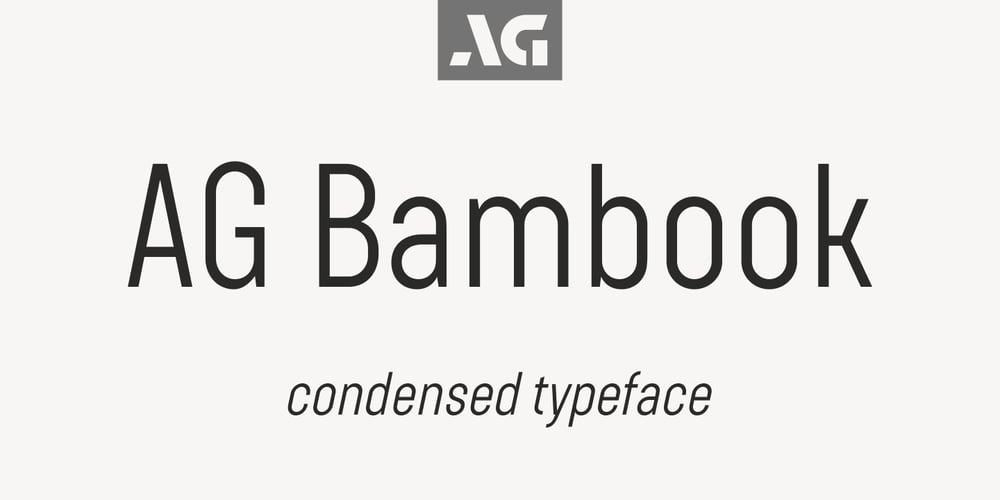
AG Bambook Font Family was designed by Alexandr Galuzin and published by Alexandr Galuzin. AG Bambook contains 4 styles and family package options. AG Bambook- compressed geometric sans serif with the closed forms. Contains 4 fonts. 2 regular and 2 italic. The font is universal and can be used in different directions of graphic design. Internet, printed materials, clothing, logos, posters, labels, navigation and more. Thanks to character compression, you can place a large amount of information in a compressed space. It will read equally well in large and small sizes. A small difference in the width of the glyphs for different styles allows you to change the saturation while maintaining the size of the text block. OpenType: alternate numbers, old-style numbers, arrows, case sensitive forms, superscript and subscript, numerators and denominators. Support: Cyrillic, Cyrillic extended, Latin, Latin Extended (Western European, Central European, South-East), Kazakh.